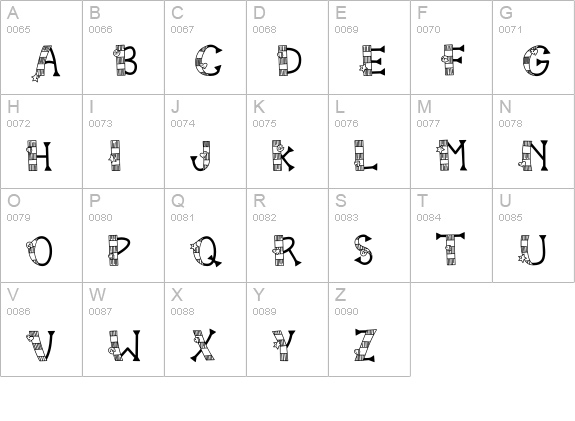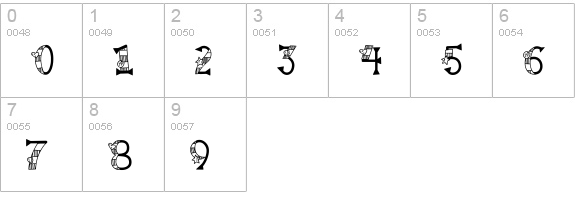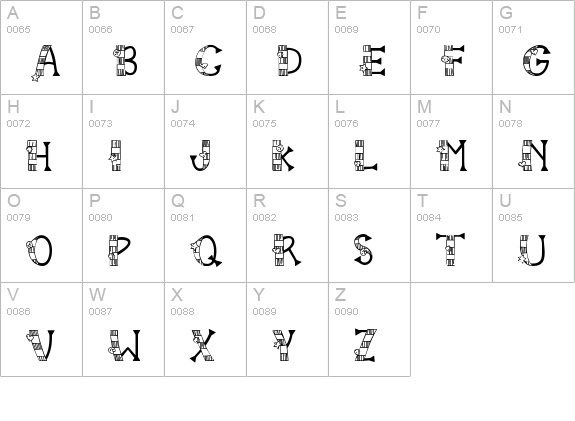
CK Beachcomber is a whimsical and playful font that captures the carefree spirit of a day at the beach. With its quirky handwritten style and charming irregularities, this font exudes a sense of relaxation and fun. Perfect for adding a touch of summer vibes to your designs, CK Beachcomber is versatile and easy to read, making it ideal for a variety of projects. And the best part? CK Beachcomber is available for free download at FontsMarket.com! Embrace the sun, sand, and sea with this delightful font and bring a touch of beachy charm to your creations. Let your imagination run wild and infuse your designs with the carefree joy of a day spent by the shore. Download CK Beachcomber now and bring a splash of summer to your projects!